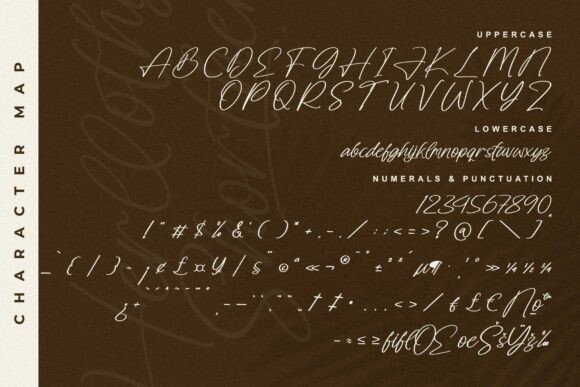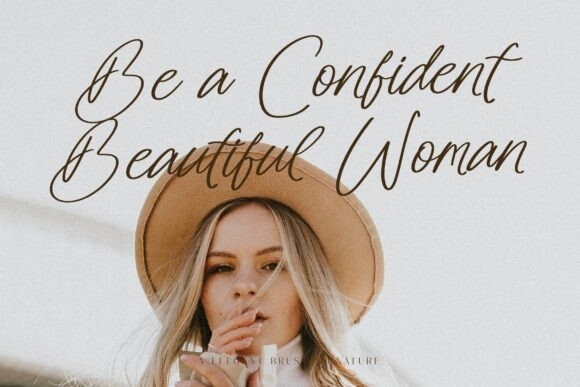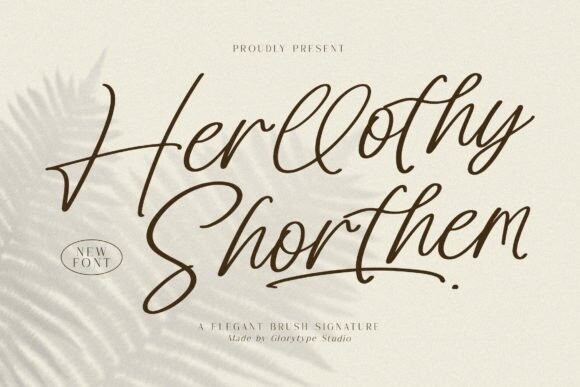
Herllothy Shorthem Font
Herllothy Shorthem Font is an elegant handwritten font suitable for any project such as logos, branding projects, homeware designs, product packaging, mugs, quotes, posters, shopping bags, T-shirts, book covers, name cards, invitation cards, greeting cards, labels, photography, watermark, special events, and all your other lovely projects that need a beautiful script taste.
This font is PUA encoded, which means you can access all of the glyphs and swashes with ease!